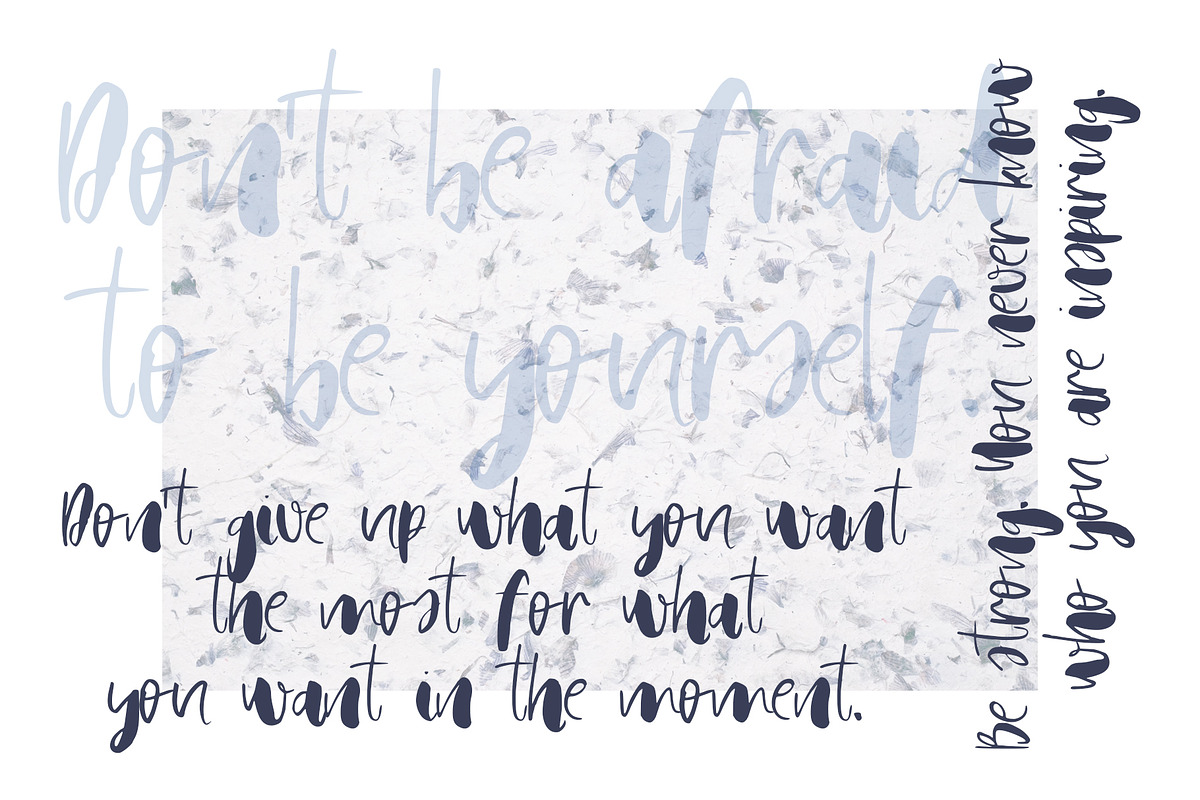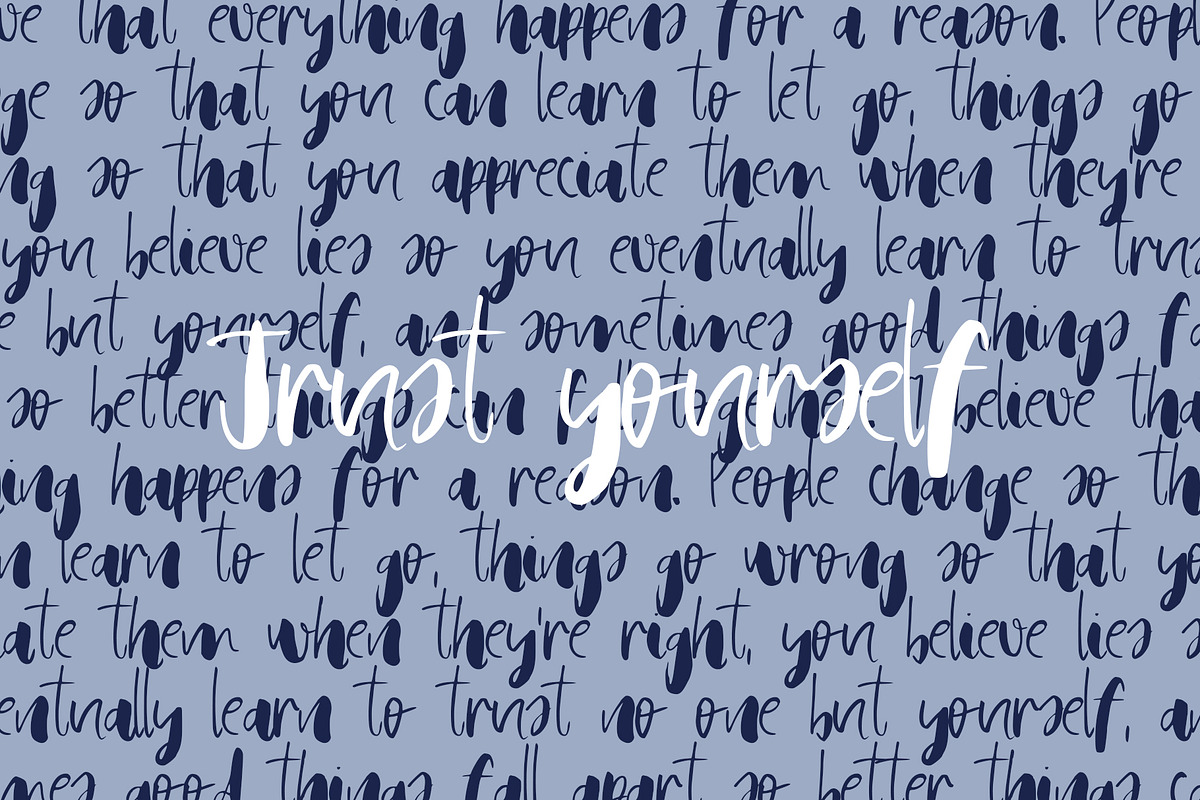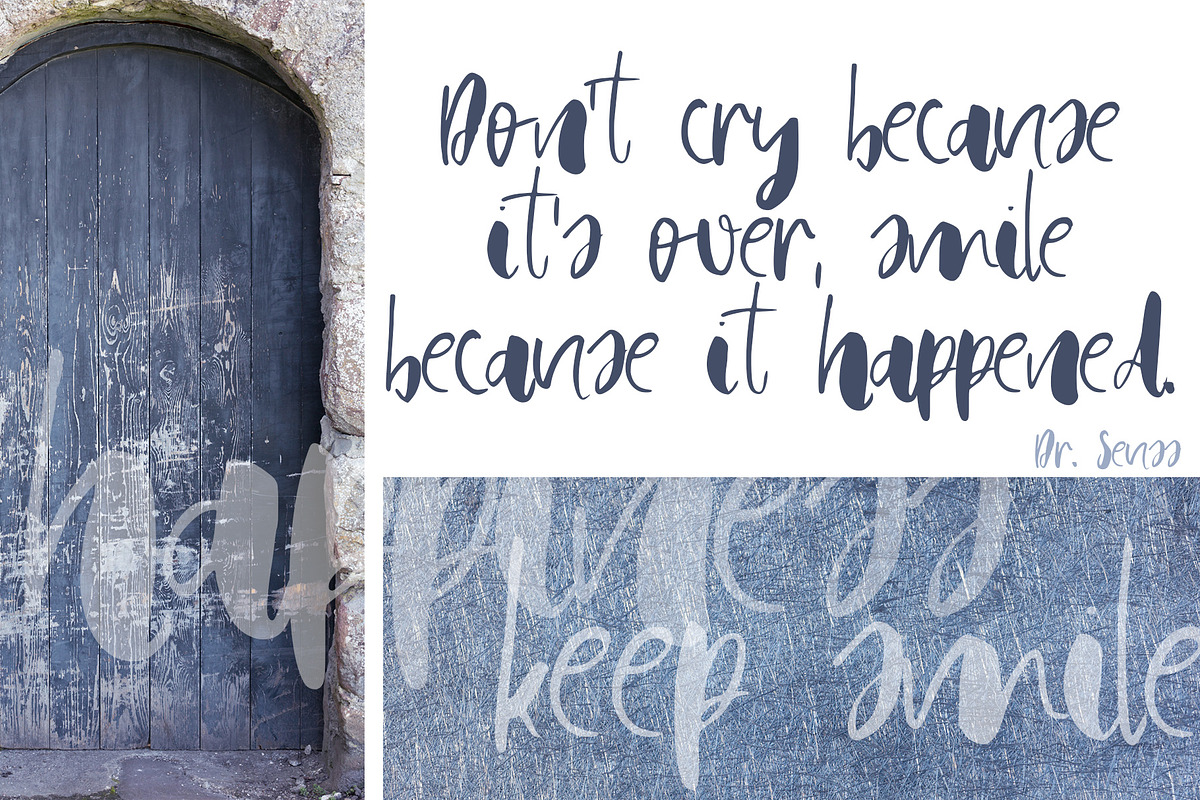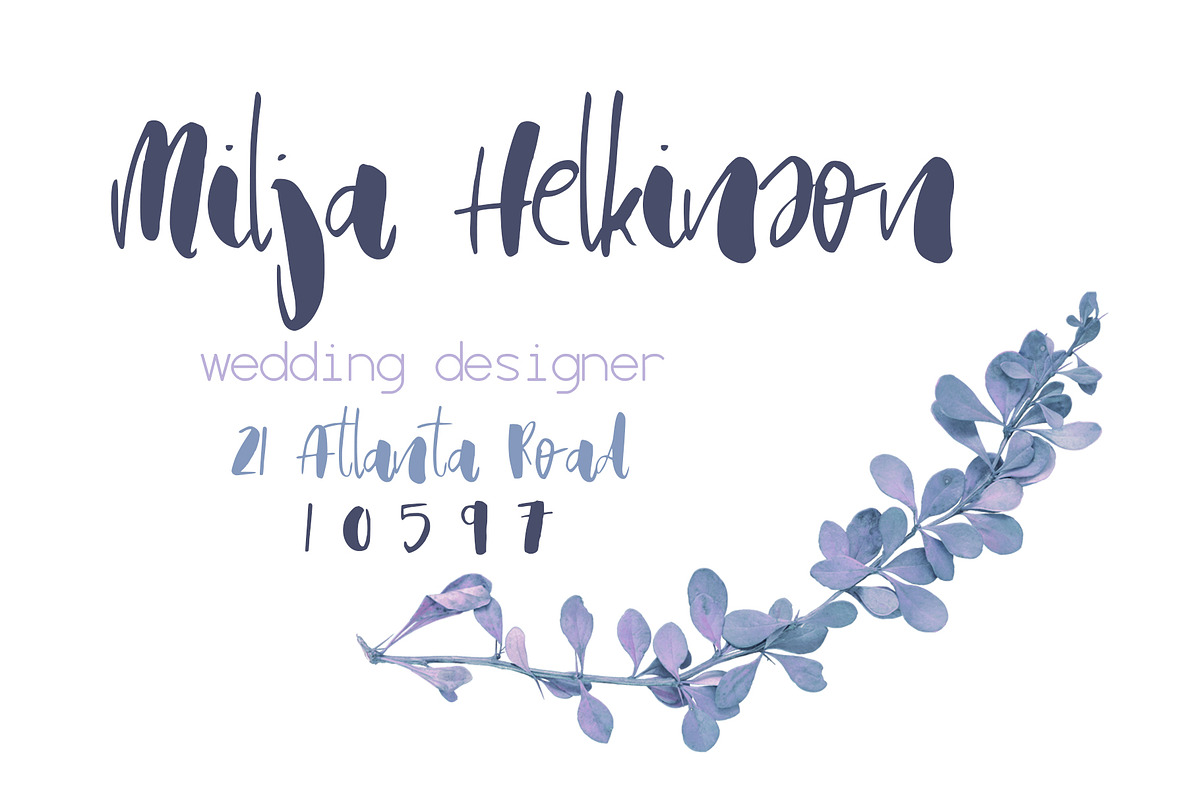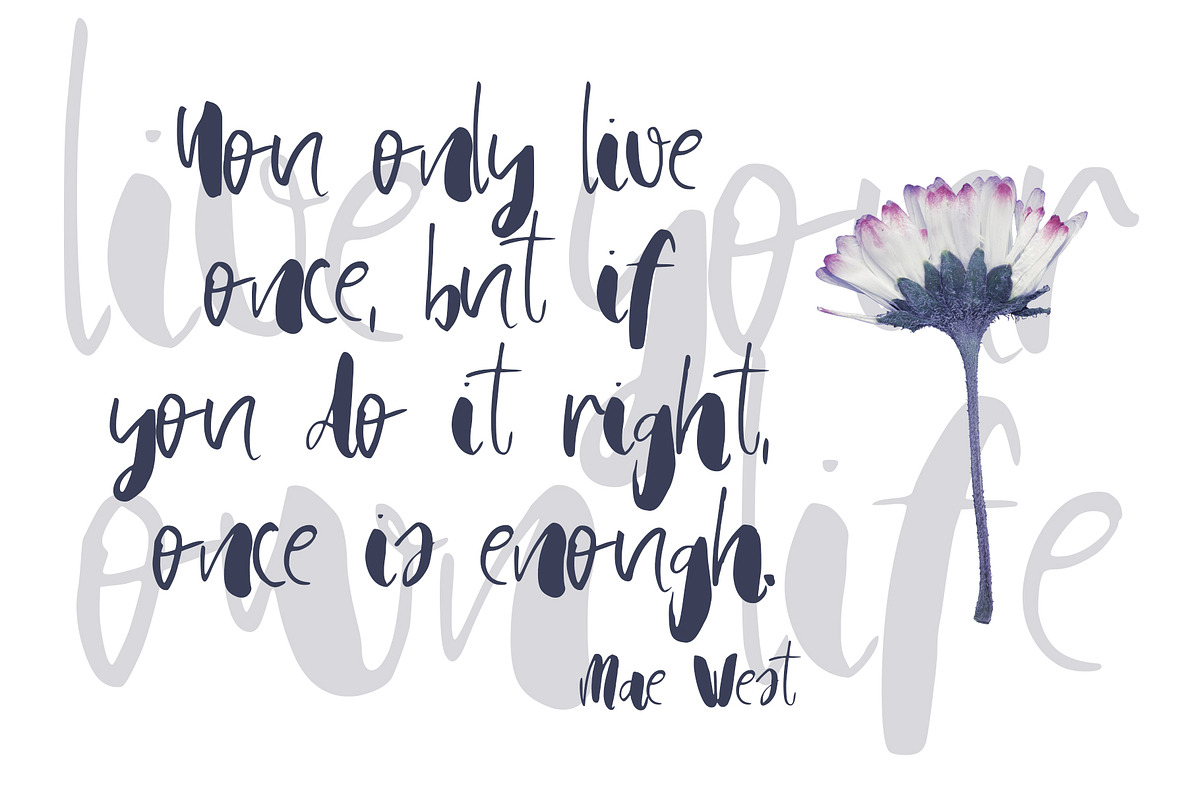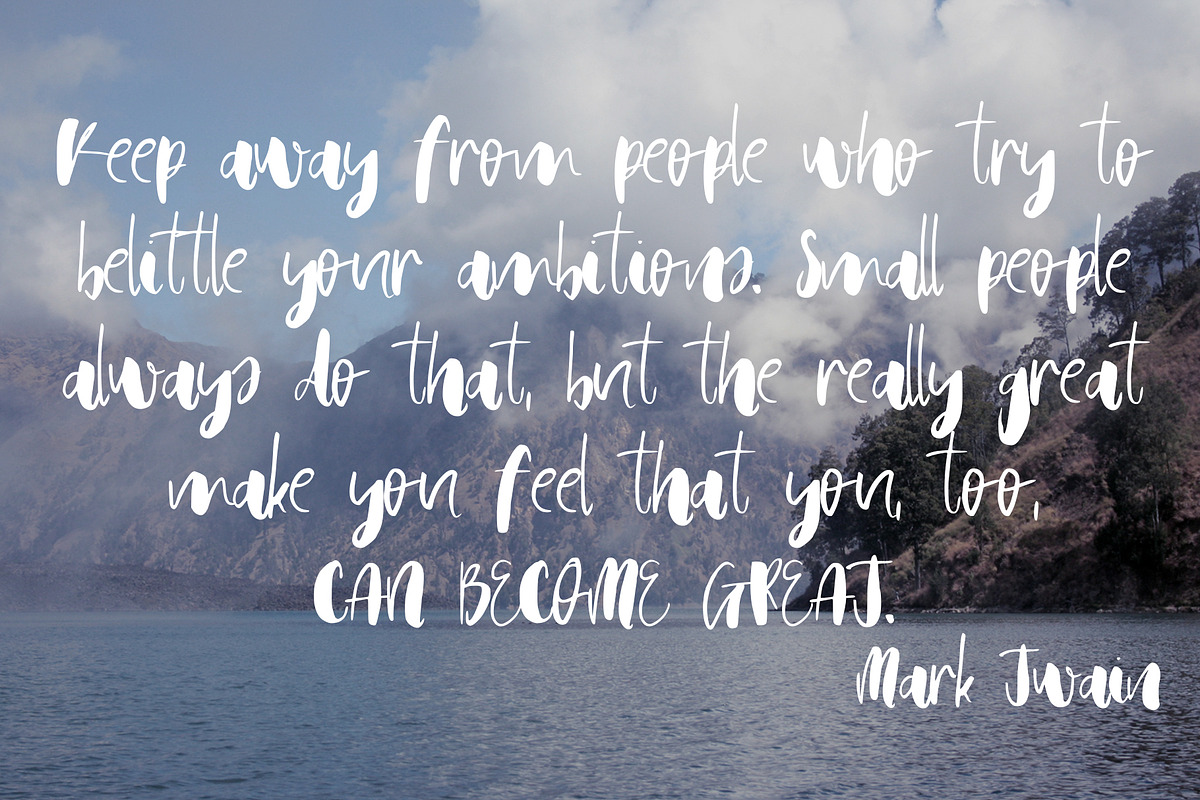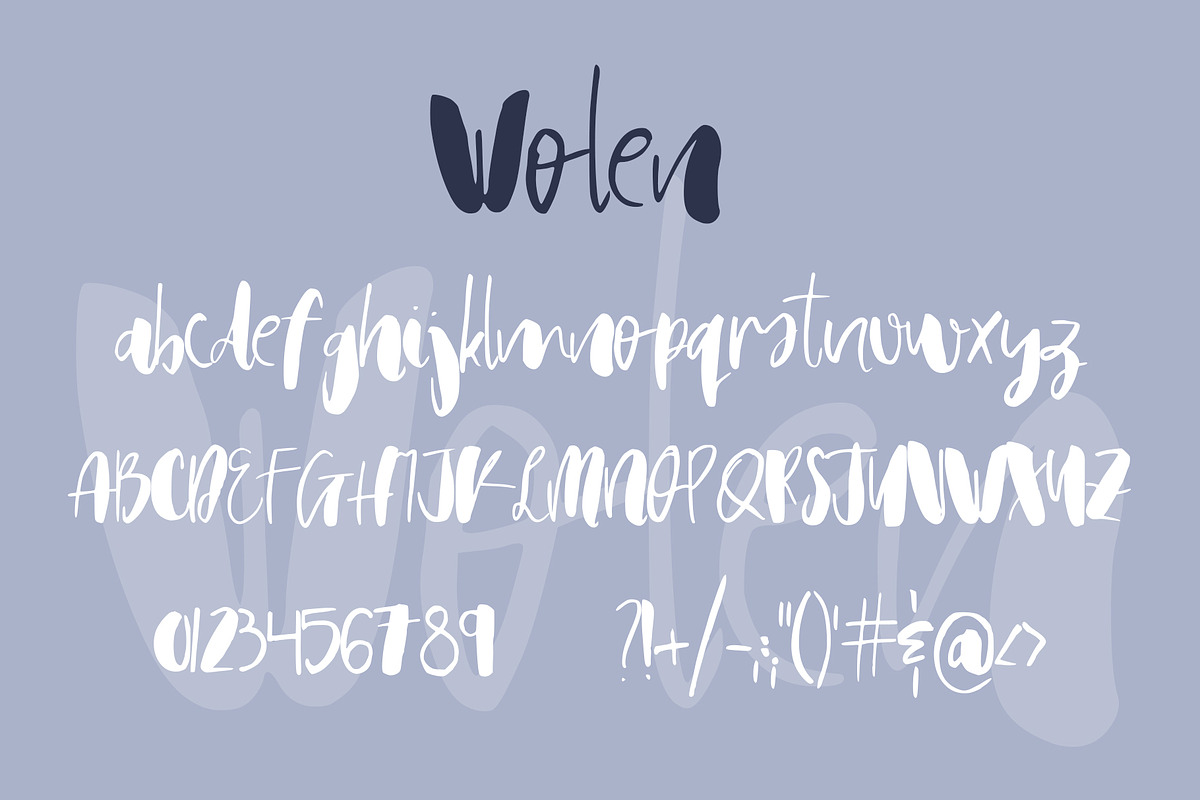
Wolen Font
Introducing Wolen, a whimsical handwritten script.💗 Perfect for any graphic and logo designs, wedding and birthday invitations.
- Wolen font contains uppercase & lowercase characters, numbers and punctuations.